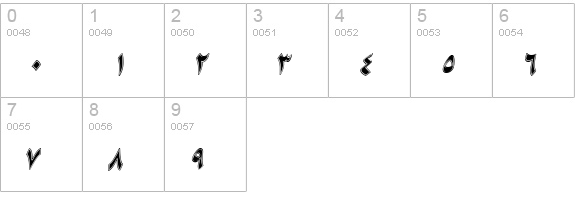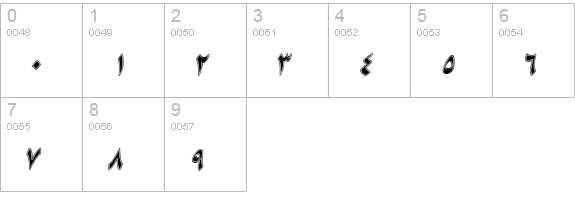
B Niki Border Italic Font Details
B Niki Border Italic is a distinctive, italic variant in the B typeface family \xE2\x80\x94 well suited to design and typography projects.
B Niki Border Italic is a stylish and elegant font that adds a touch of sophistication to any design project. The intricate border details of the italicized letters create a unique and eye-catching look that is perfect for invitations, posters, and other creative projects. The flowing curves and delicate lines of this font give it a sense of grace and charm that is sure to impress. What sets B Niki Border Italic apart is not only its beautiful design, but also the fact that it is available for free download at FontsMarket.com. This means that you can easily access this stunning font and use it in your projects without any cost. Whether you are a professional designer or a hobbyist looking to add a special touch to your creations, B Niki Border Italic is a fantastic choice that will elevate your work to the next level. Download it today and start creating beautiful designs with this exquisite font.